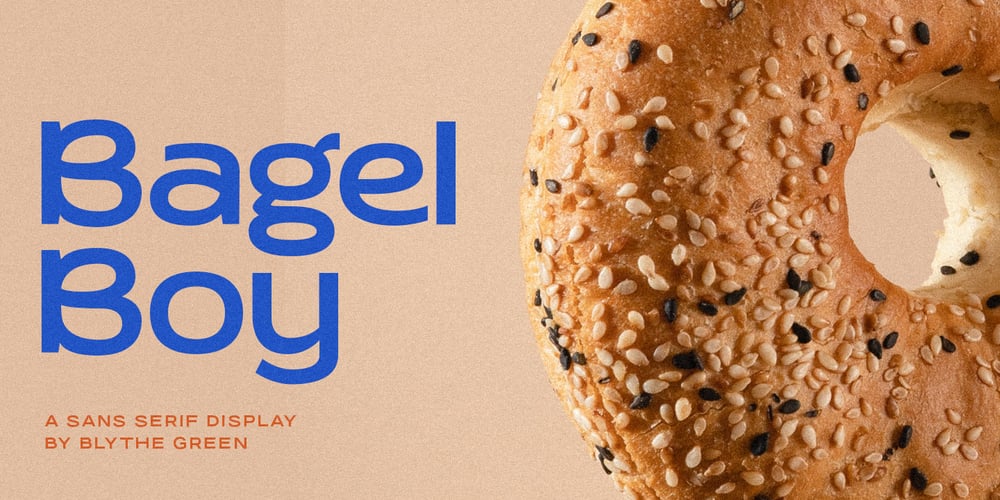
Bagel Boy Font Family was designed by Blythe Green and published by Blythe Green. Bagel Boy contains 1 styles and family package options. Meet Bagel Boy: the funky sans serif display typeface perfect for headlines, logos, names, and quotes. Buy now and tag me (@blythegreen) in your designs to be featured on IG!Includes: Bagel Boy font Uppercase + lowercase Numbers + punctuation Special characters Language support